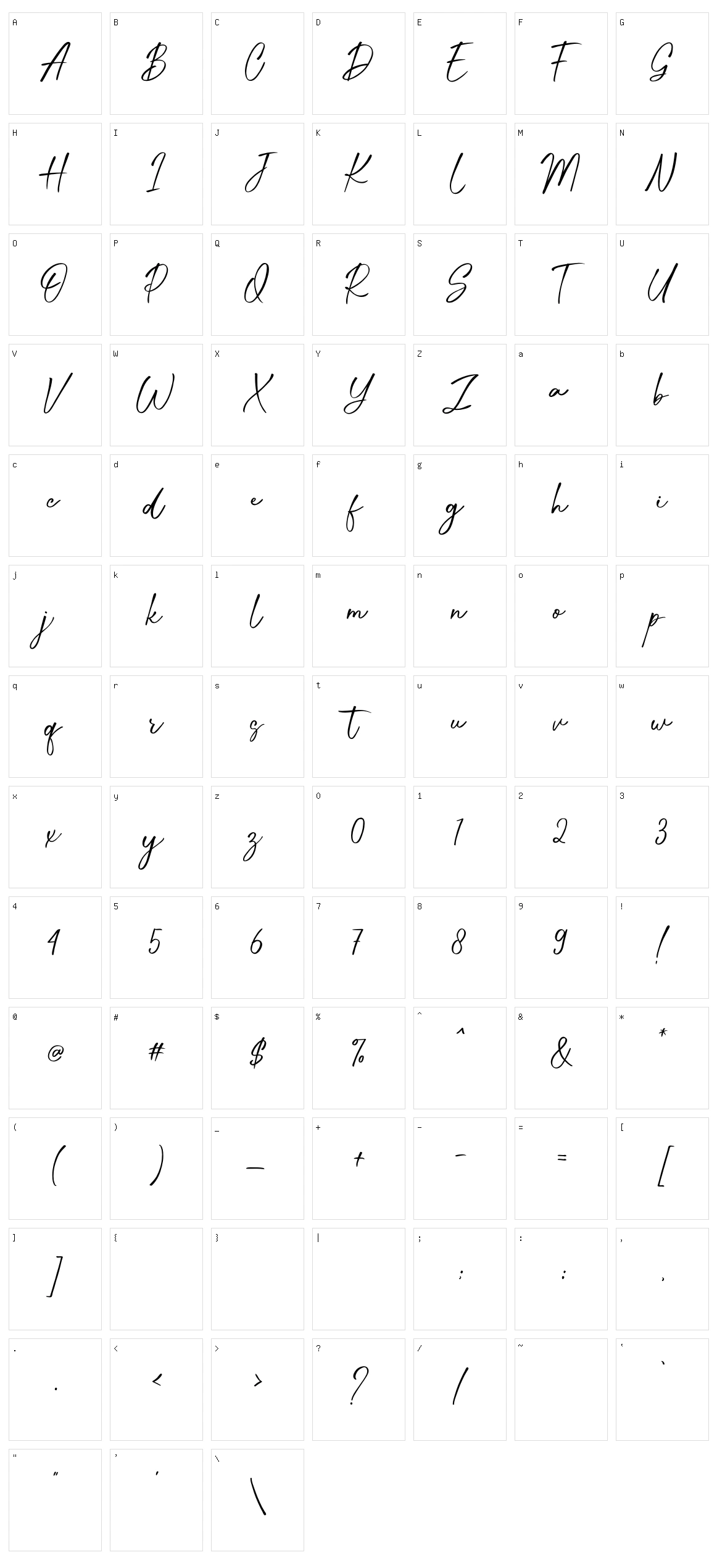
The free font Moonlight Paradise is carefully designed by Bluestype Studio, showcasing a thoughtful balance of creativity and usability and falls under the Script font style. When you download the ZIP file, it contains only 40.34 KB of font files, making it lightweight and quick to download. Please review the license details below to understand permitted usage and distribution rights. If license information is not available, we recommend using this font for personal projects only or contacting the author directly for commercial usage permissions.